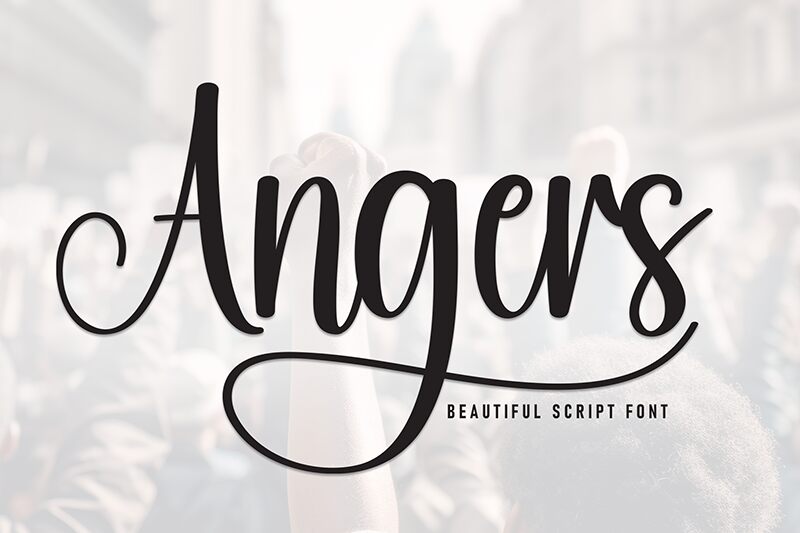
Angers
Angers font is a free calligraphy font designed by Andi Moz with an engaging, modern style that is both expressive and versatile. It combines script elegance with remarkable casualness and uniqueness, making it the perfect tool for creating memorable visual projects.